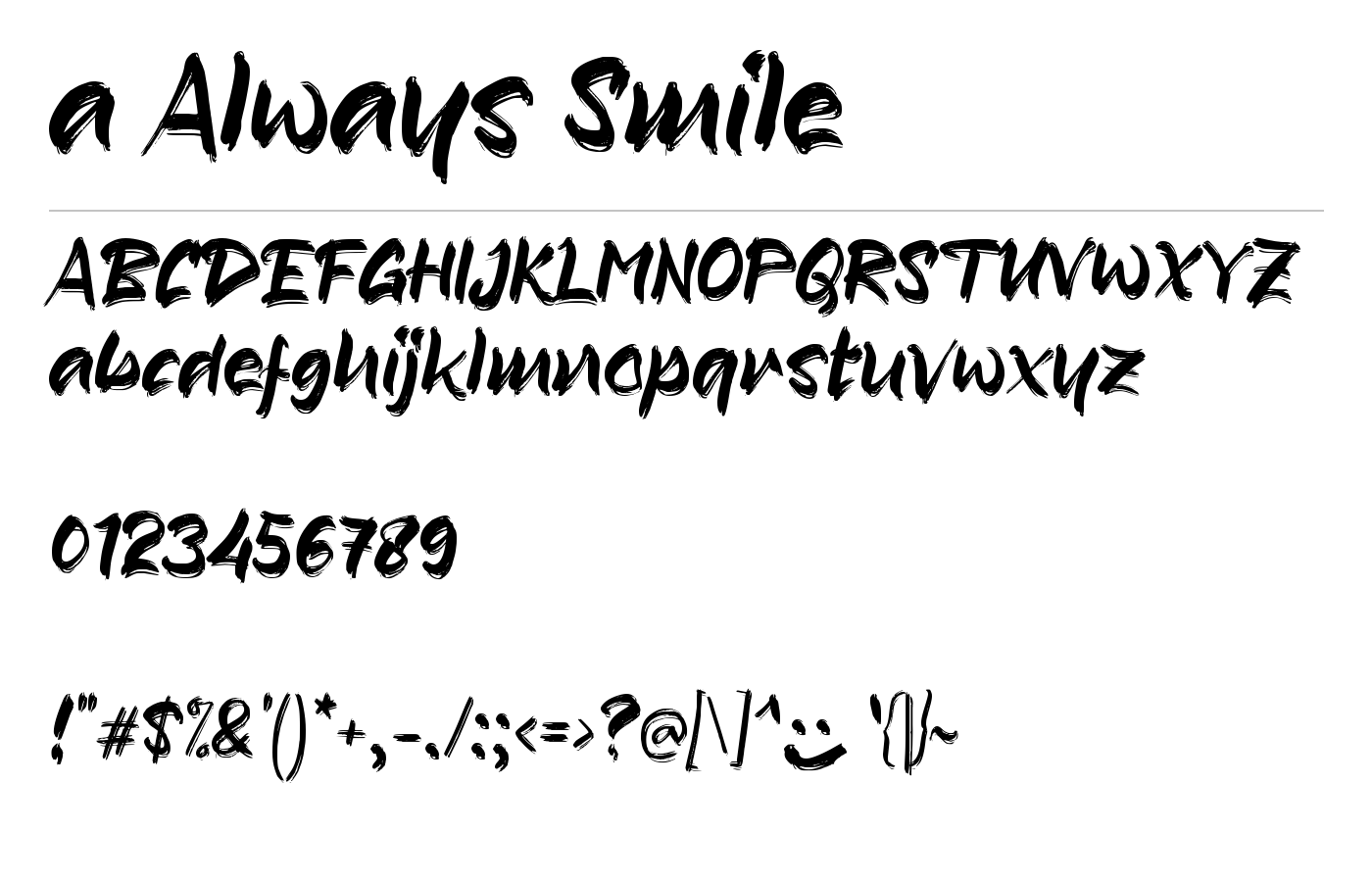
Always Smile is a bold, brush-style handwritten font with a lively and energetic feel. Its uneven, textured strokes give it a casual and artistic vibe, perfect for playful and creative designs that need a personal touch. This font works great for branding, posters, and social media where a friendly, dynamic expression is desired.
a Always Smile Font
About a Always Smile Font